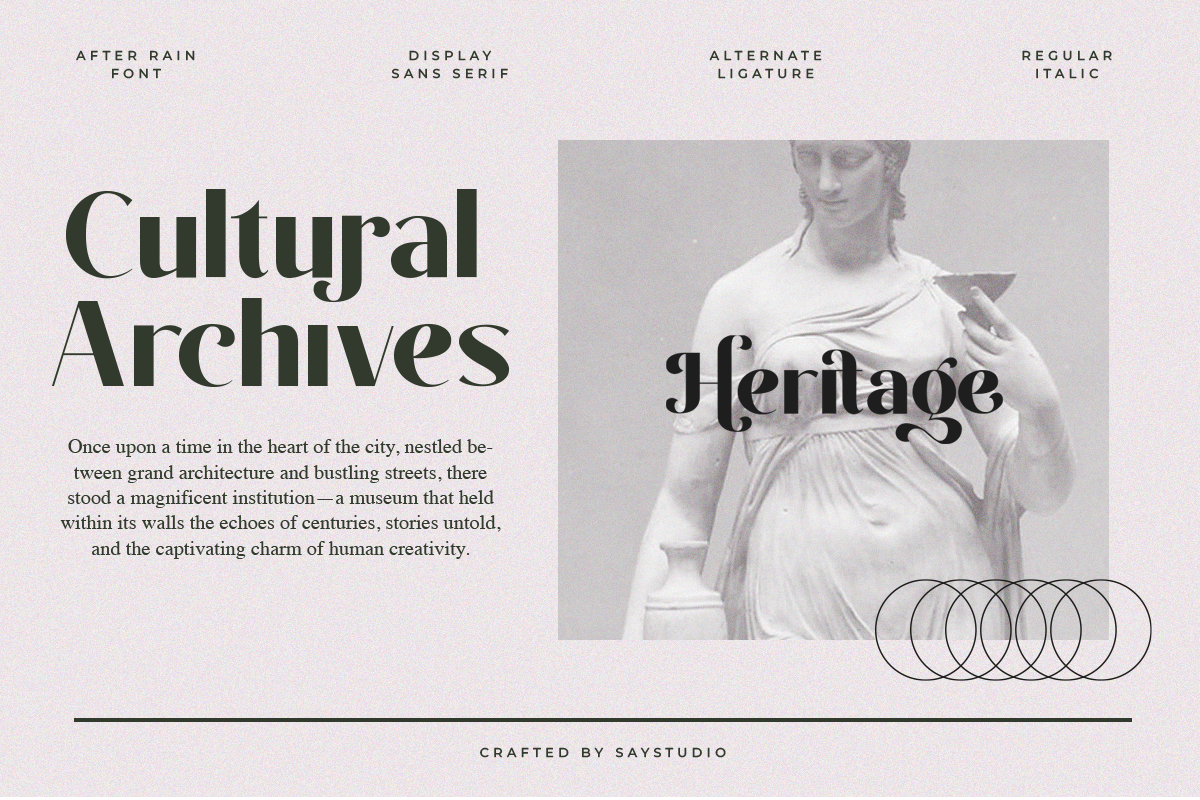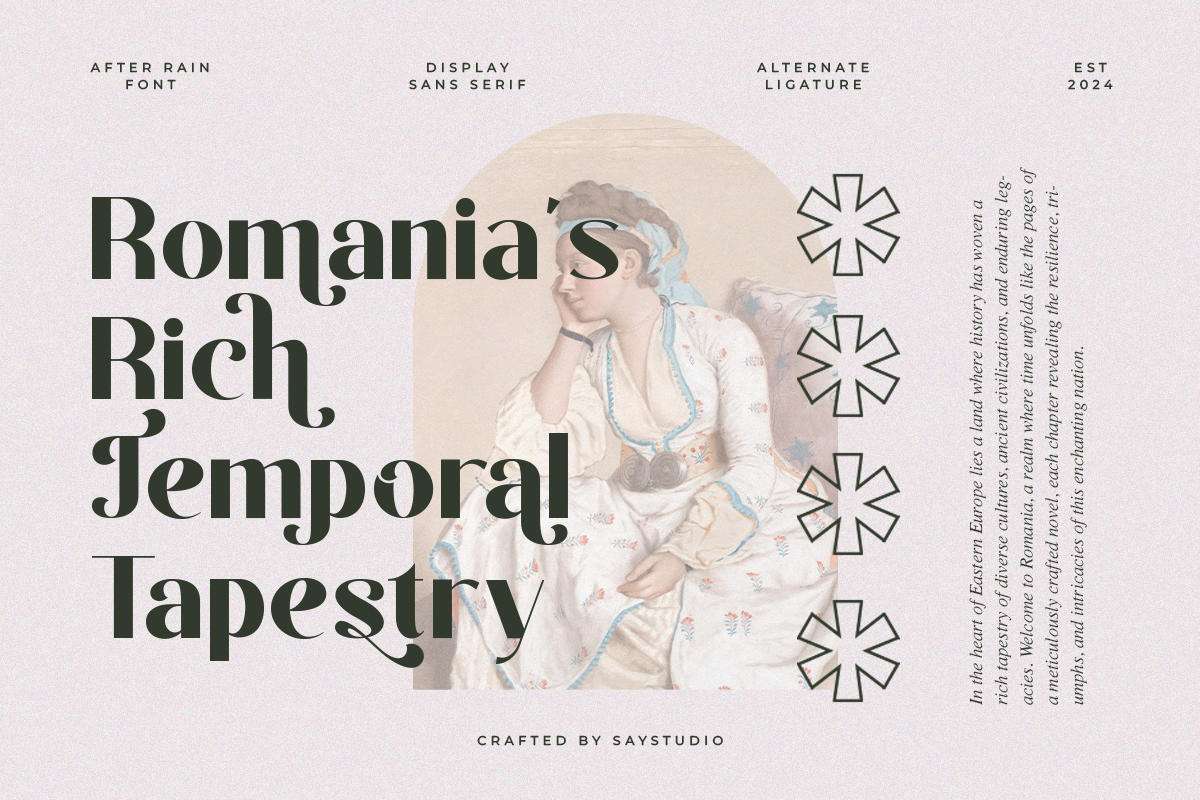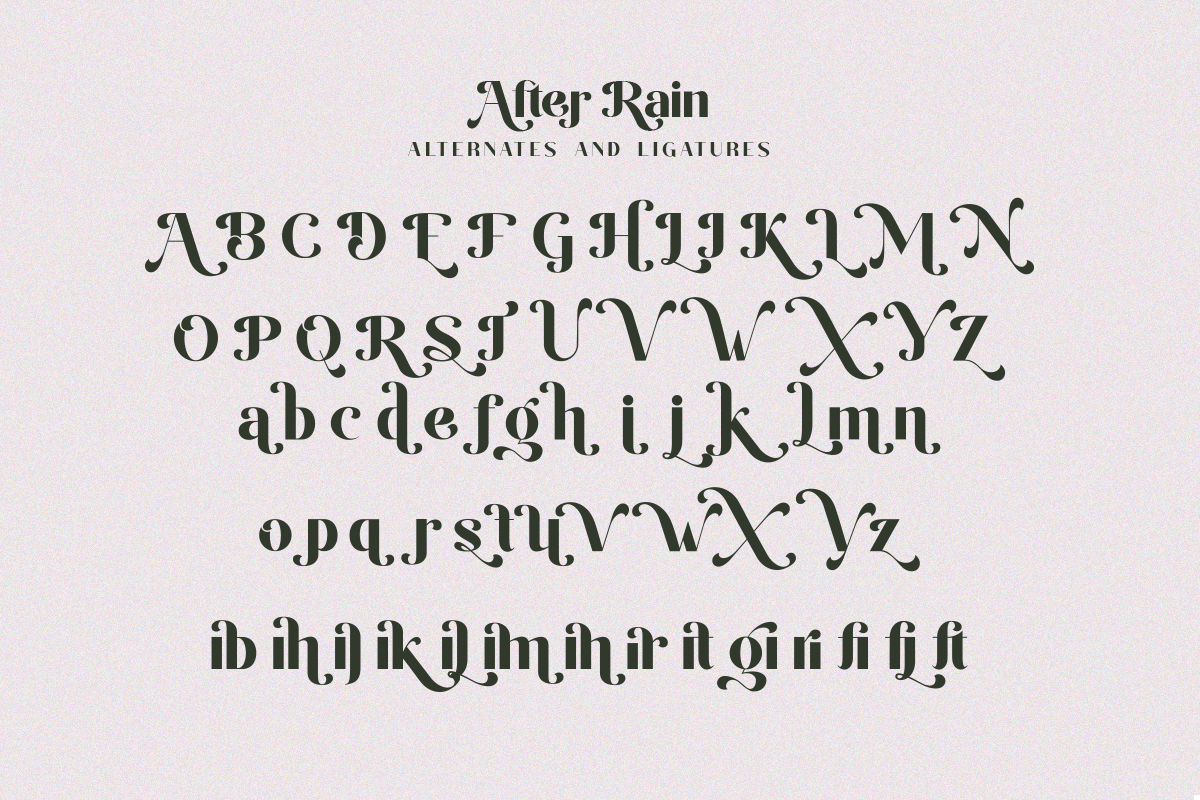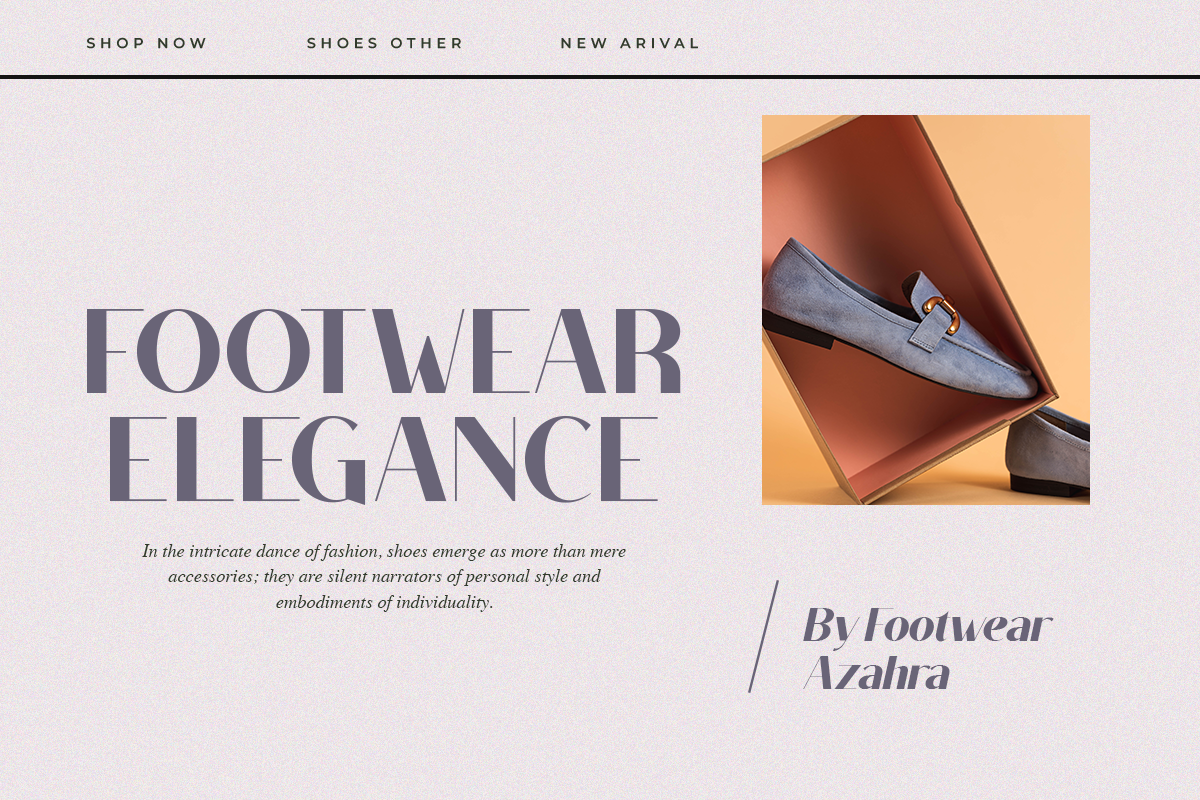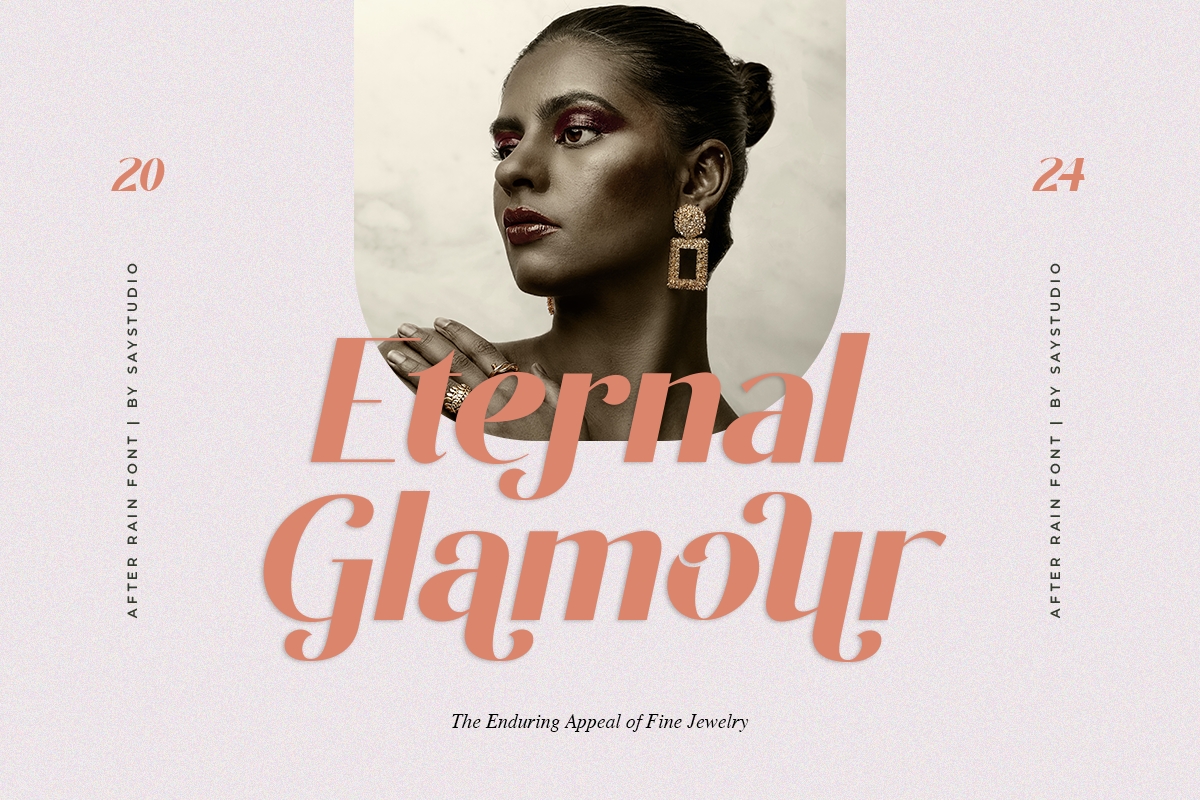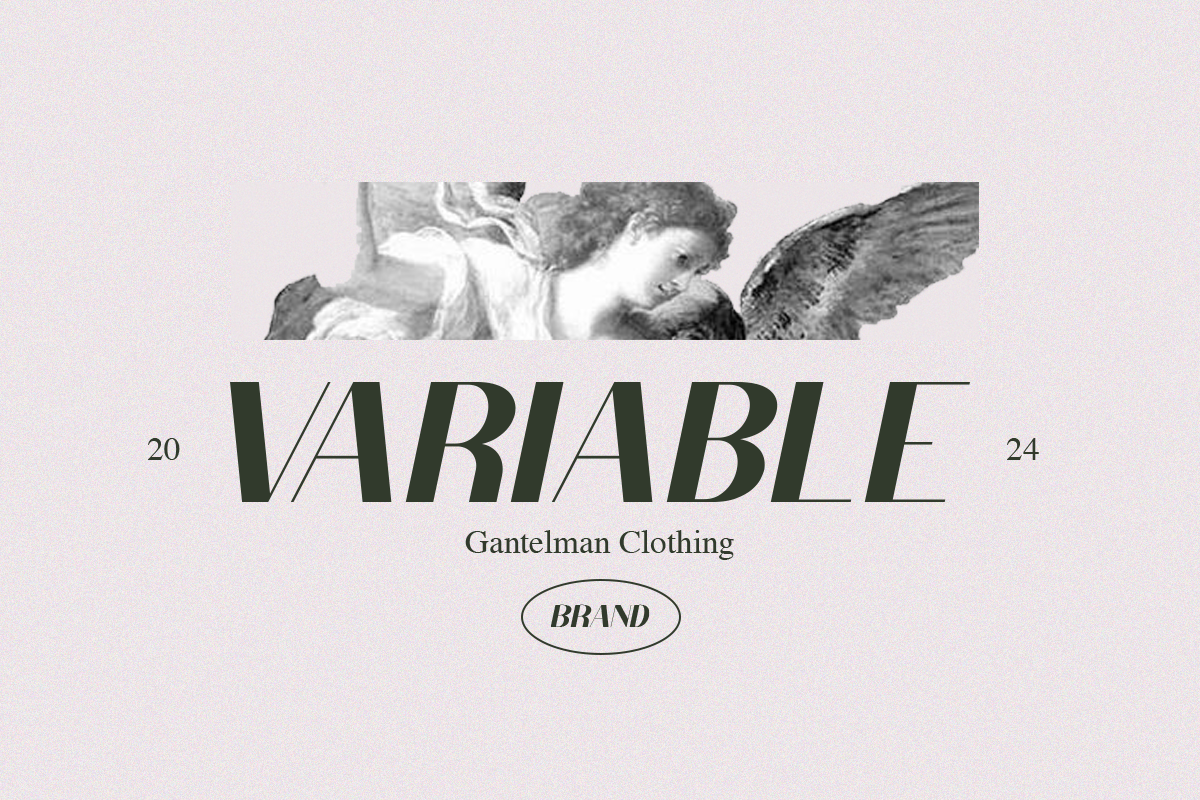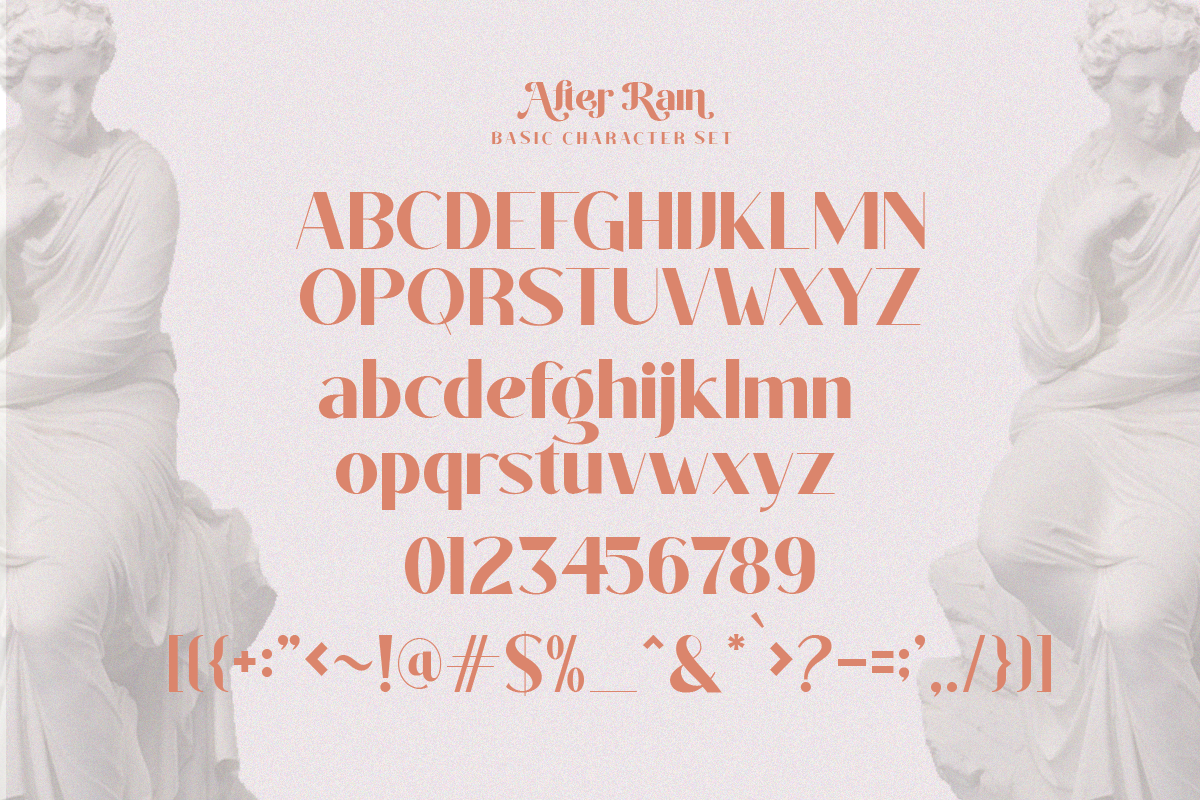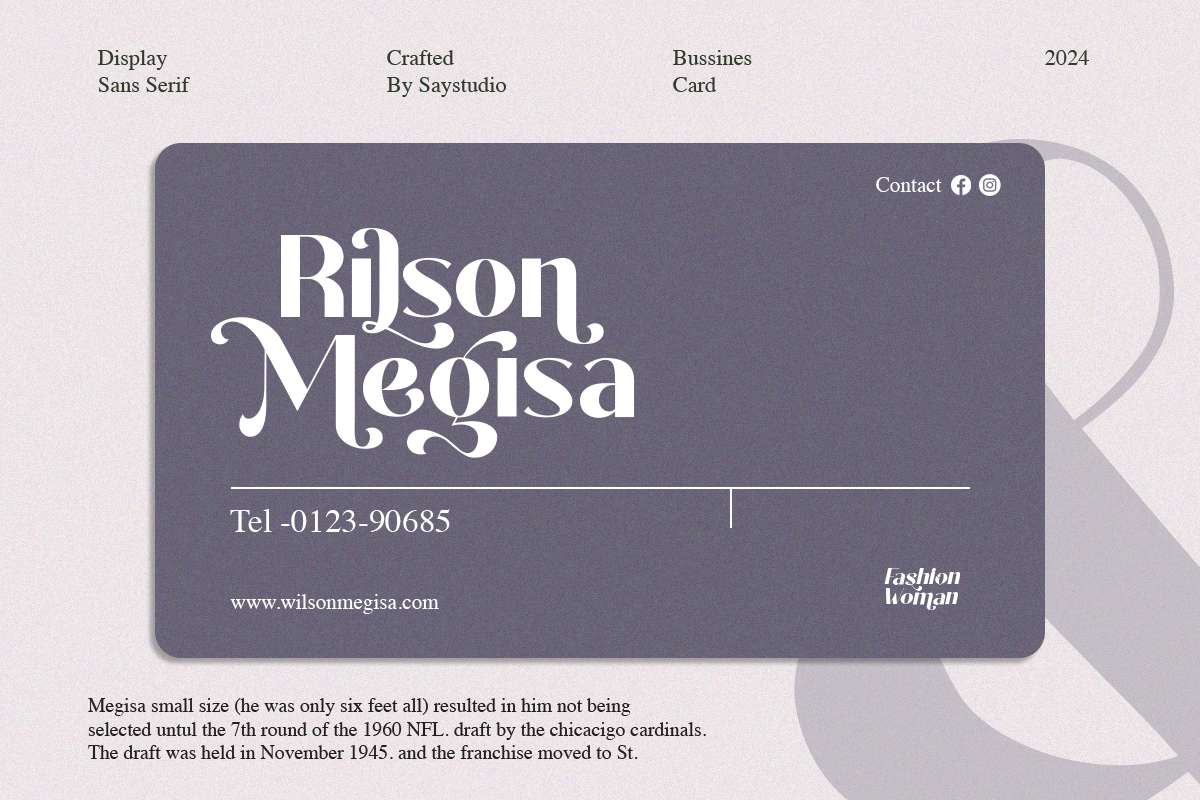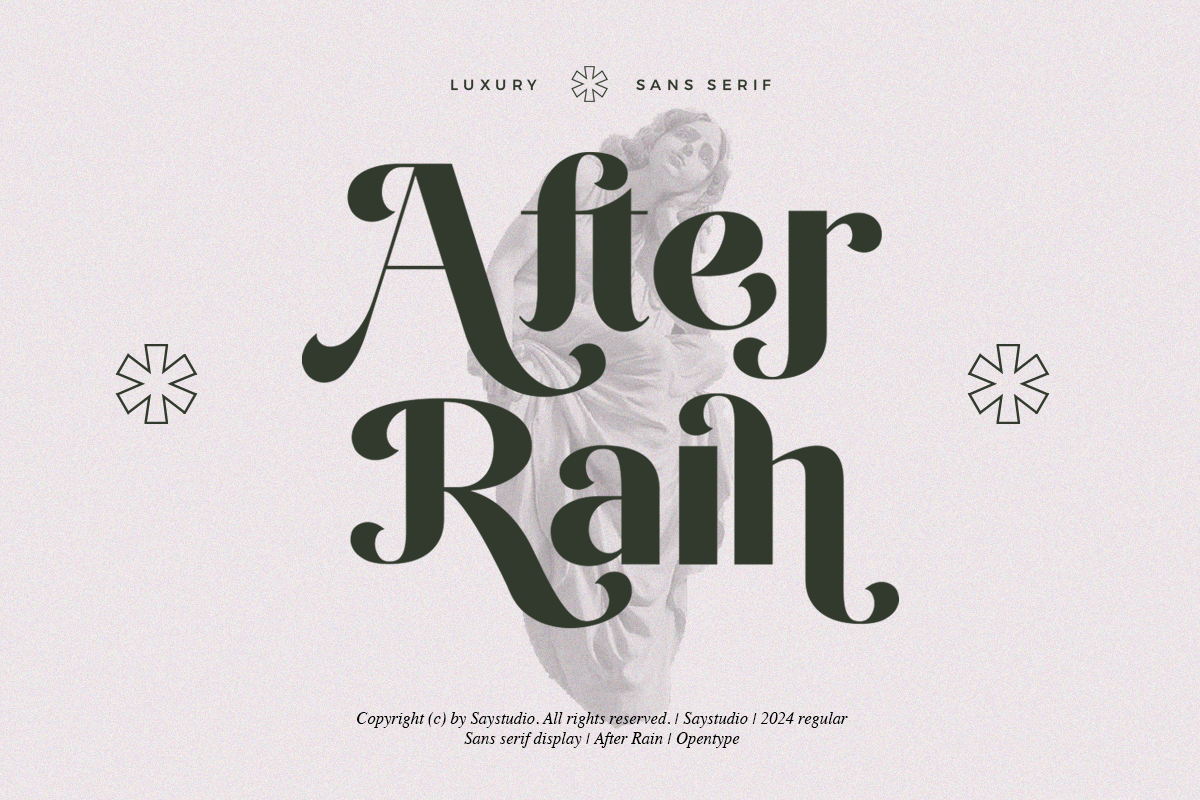
After Rain - Luxury Sans Serif Font
Introducing After Rain - Luxury Sans Font
After Rain is a Modern Luxury and Elegant font with beautiful ligatures, tons of special alternative glyphs, ornament and multilingual support. It's a very versatile font that works great in large and small sizes.After Rain is perfect any project as logotype design, branding, cosmetic brands, wedding invitations, suite and stationery, greeting cards, , social media promo, quotes, banners and everything you can imagine!
- Regular and Italic
- Stylistic Alternates & Ligatures
- Multiple Languages Supported